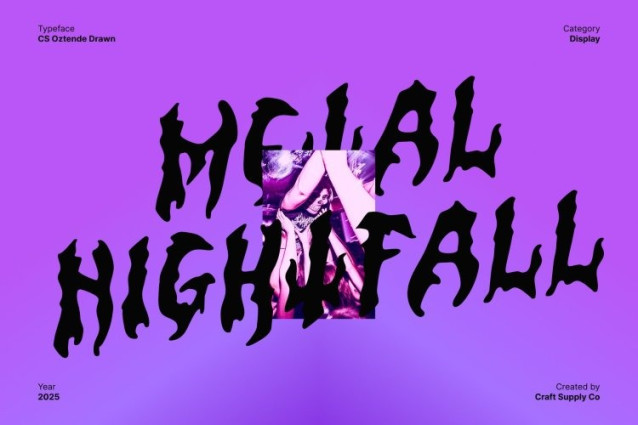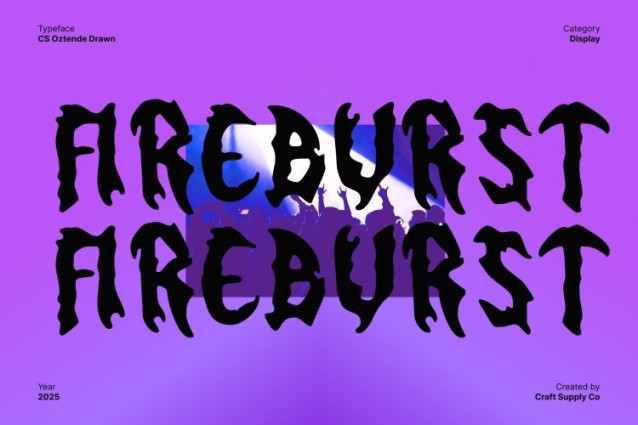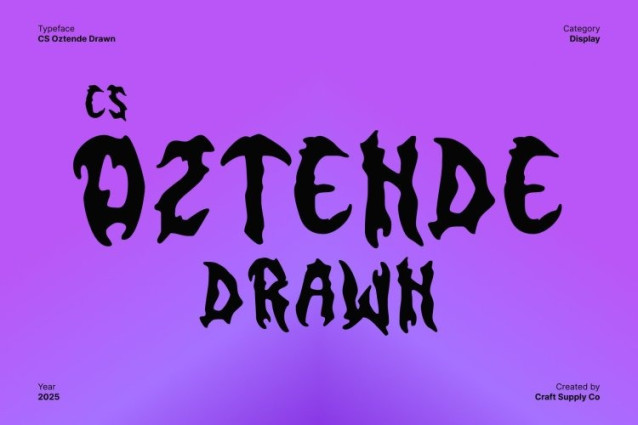
CS Oztende Drawn Font
CS Oztende Drawn Font Raw and aggressive, this black metal display font features sharp, jagged spikes and chaotic strokes that convey darkness, power, and intensity. Its bold, extreme shapes create a visual presence that perfectly reflects the energy and attitude of heavy and extreme music genres.
Artistic Drawn Effect for Unique Expression
The drawn effect adds a handcrafted, artistic layer to the font, emphasizing its chaotic and expressive nature. Each letter feels unique and organic, giving your design a distinctive, rebellious personality that stands apart from standard typefaces.
Perfect for Band Logos, Posters, and Edgy Projects
Ideal for metal band logos, album covers, concert posters, or any design that seeks to embody aggression and intensity, this font ensures your visuals carry an authentic extreme-music aesthetic. Its raw design captures attention while maintaining readability in display contexts.
Dark, Intense, and Visually Striking
Combining jagged black metal forms with a hand-drawn artistic touch, this font delivers a powerful and expressive typographic identity. It’s the perfect choice for creatives aiming to infuse their projects with bold, edgy, and intensely dark energy.